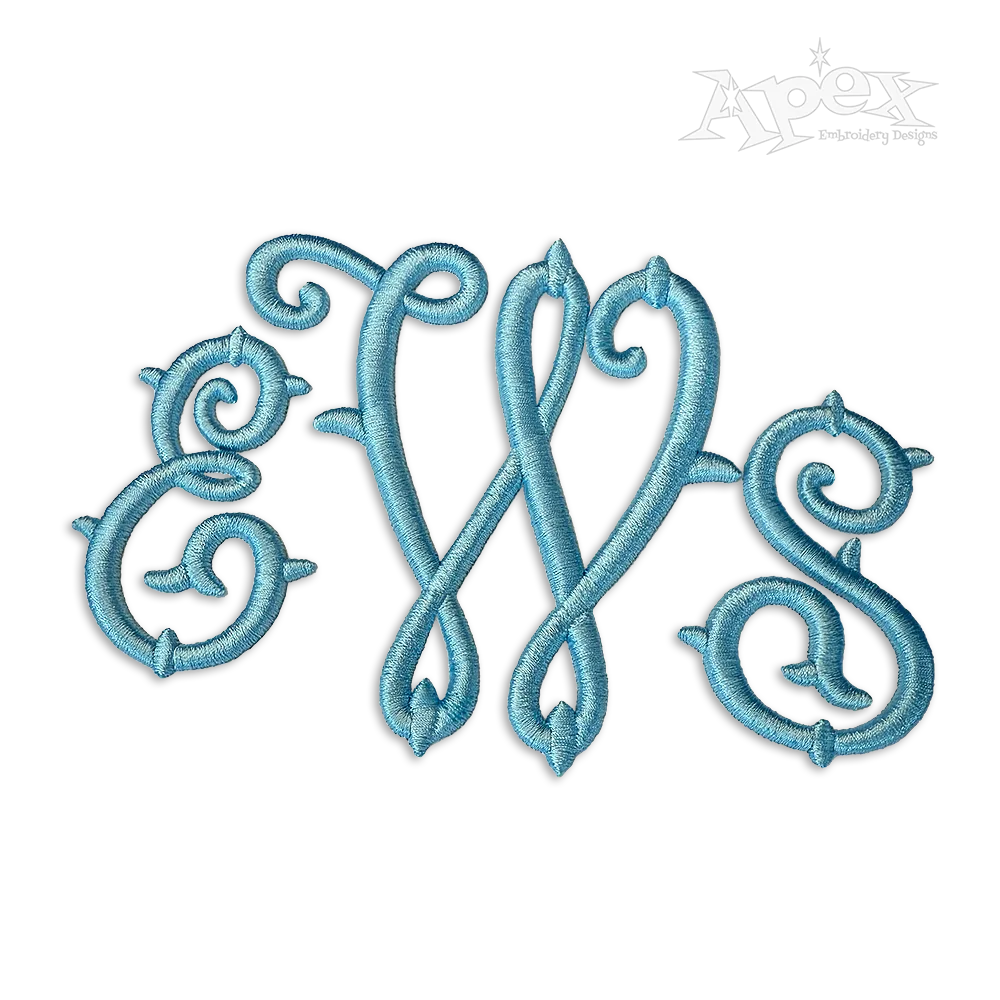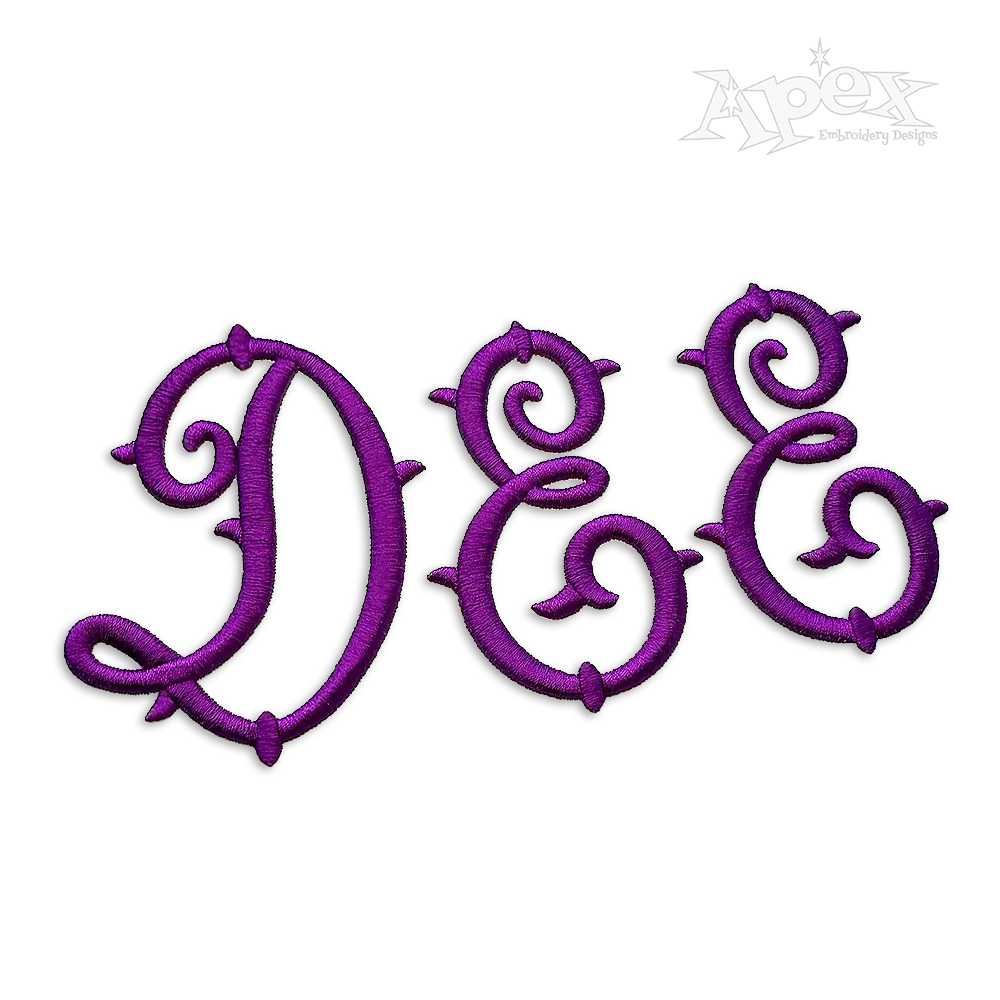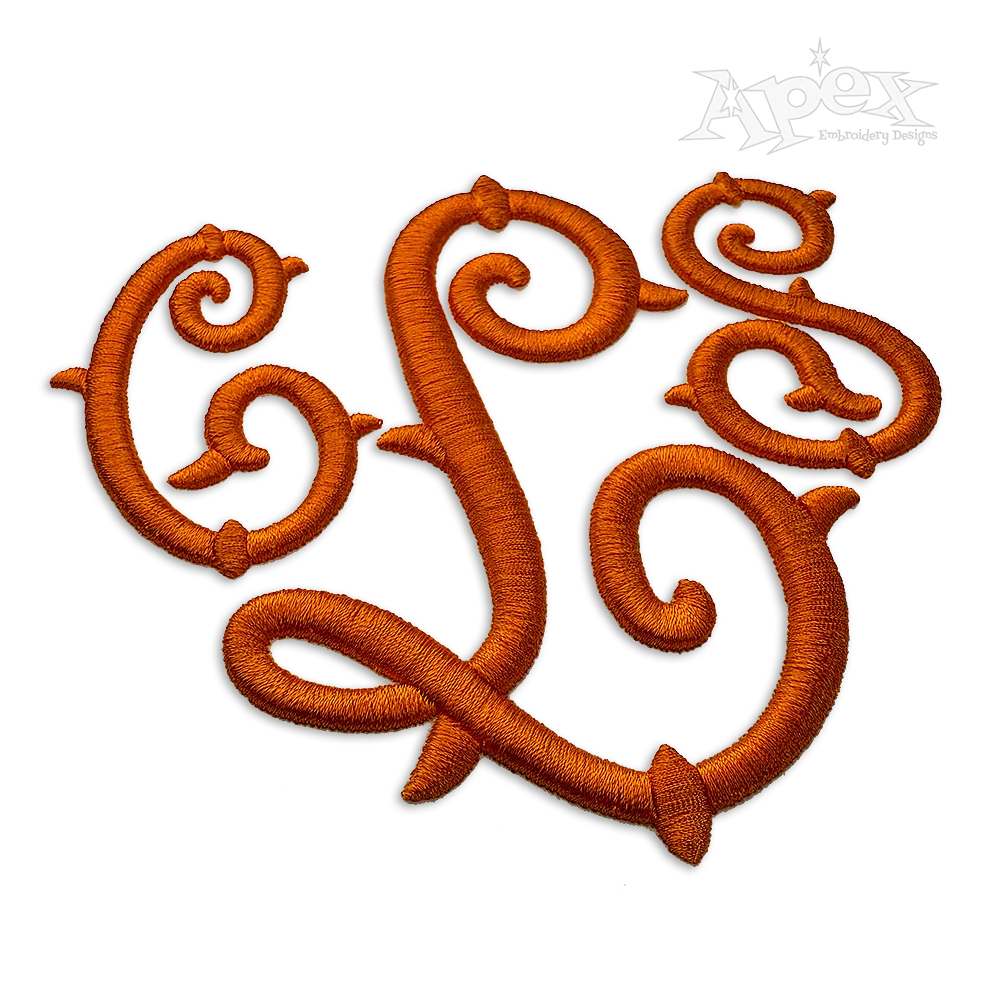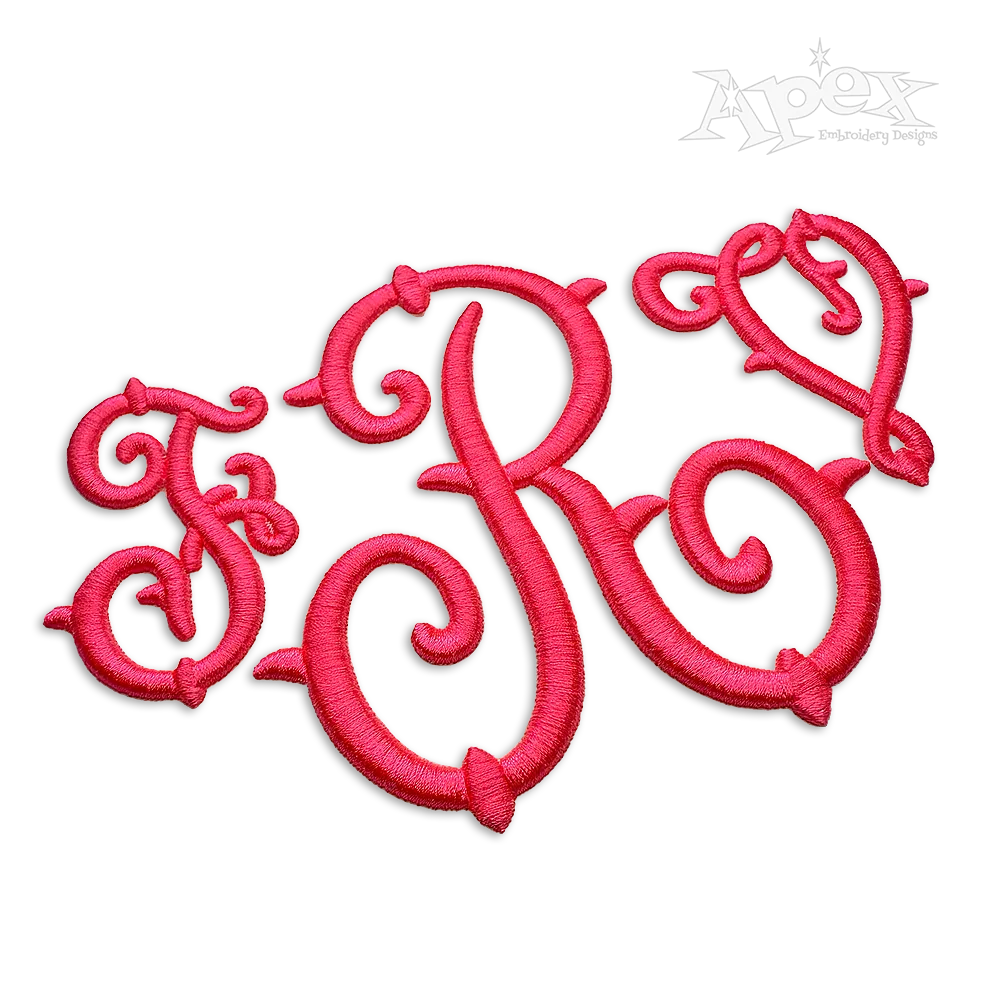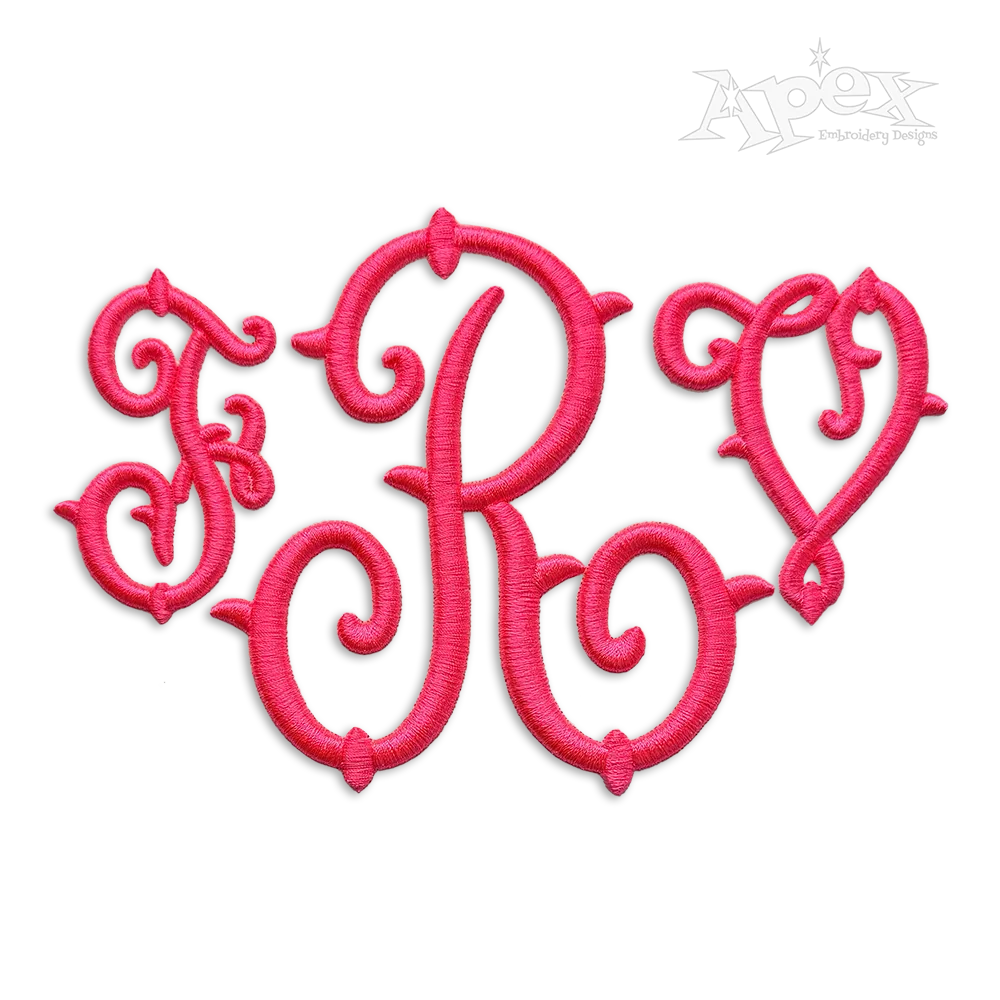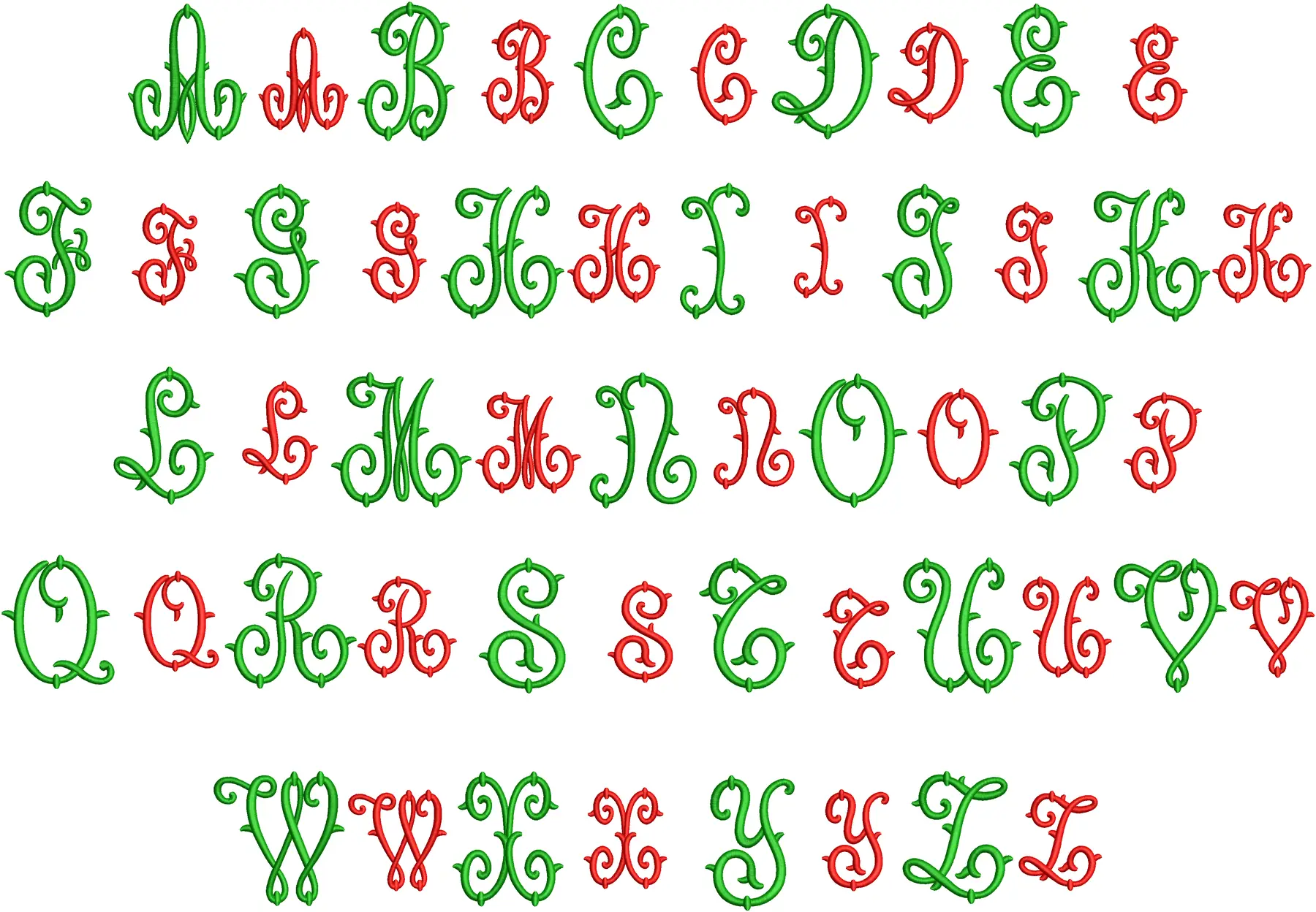
Arabesque 3D Puff Embroidery Font
Born from a deep appreciation for classical scrollwork and dimensional textile art, the Arabesque 3D Puff Embroidery Font transforms personalized monogramming into a sculptural masterpiece. When engineering this collection, our digitizing studio set out to marry the graceful, flourishing curves of Mediterranean ironwork with modern tactile relief. The result is an embroidery font where light playfully catches the peak of every satin stitch, casting subtle shadows that bring extraordinary depth and drama to the fabric surface. Whether elevating bespoke resort wear or crafting unforgettable personalized gifts, this collection delivers an unmistakably luxurious, high-end presence.
This masterfully digitized monogram set is scaled across four versatile sizes, engineered to maintain perfect proportion and stitch balance whether working on compact accessories or large statement pieces:
Project Ideas for Arabesque 3D Puff
The pronounced depth of raised foam embroidery brings a rich, tactile sophistication to sturdy fabrics. Consider these elevated project ideas:
- Bespoke Resort & Streetwear: Elevate structured baseball caps, corduroy overshirts, and heavyweight fleece hoodies with a center-chest 3D monogram.
- Luxury Travel Accents: Stitch initials onto ballistic nylon duffels, heavy canvas weekender bags, and velvet cosmetics cases.
- Statement Home Decor: Transform textured linen throw pillows, heavy wool throws, and tailored footstools into couture living accents.
- Personalized Gifting: Create unmistakable custom keepsakes for groomsmen, graduates, or bridal parties on canvas boat totes and tailored denim jackets.
Because dimensional puff embroidery carries substantial presence, thoughtful positioning ensures the final piece looks intentional and balanced:
- Structured Cap Fronts: Center the 2.0-inch size directly over the front seam of structured six-panel caps for an authentic pro-grade finish.
- Luggage & Tote Pockets: Align the 3.0-inch or 4.0-inch monograms centered horizontally across the upper third of exterior bag pockets.
- Back Yoke or Center Chest: Position the 3.0-inch monogram 3 to 4 inches below the back collar seam of jackets, or bold and centered across heavyweight crewnecks.
- Blanket Corners: Angle larger 4.0-inch or 5.0-inch monograms at a 45-degree diagonal, set 4 to 5 inches in from the corner hem of plush throws.
Arabesque 3D Puff Craft & Letterform Details
Digitizing for craft foam requires an entirely different technical mindset than standard flat satin embroidery. Each letterform in the Arabesque collection has been designed from the ground up with specialized end-caps, reinforced perforations, and customized density profiles. Rather than simply layering generic stitches over craft foam, our digitizers calibrated specific underlay pathways to cleanly cut the foam along letter perimeters while building a protective, ultra-smooth satin canopy.
The letterforms showcase exquisite calligraphic contrast, transitioning gracefully from slender, sweeping serifs into broad, statuesque main strokes. The center letters command focus with regal verticality, while the complementary side letters curve inward with delicate flourishes that frame the central character into a cohesive, balanced crest. Every pull compensation setting has been dialled in to counter the vertical rise of the foam, ensuring your edges stay crisp, clean, and beautifully sculpted from first stitch to last.